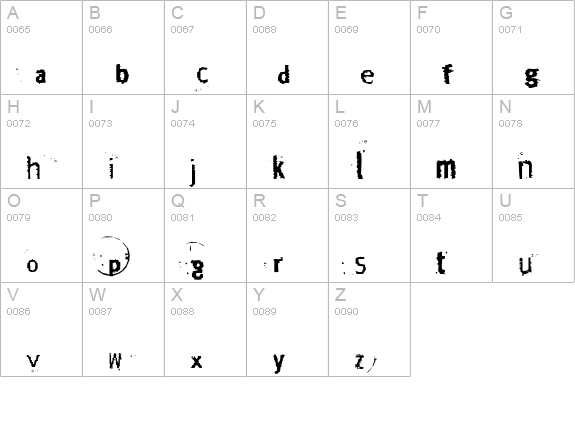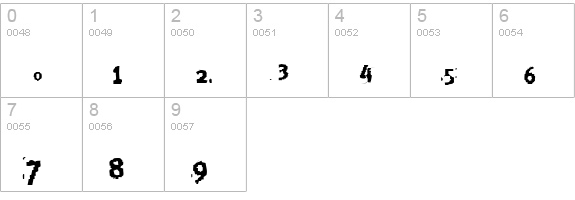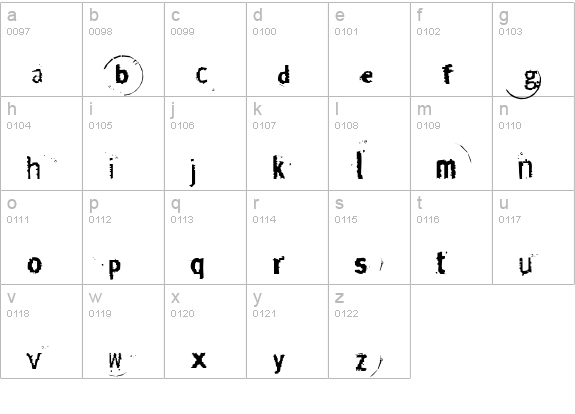
the devils car Font Details
Introducing the devil's car font, a striking and seductive typeface that will ignite your designs with a devilish charm. This font exudes an unparalleled aura of mystery and intrigue, capturing the essence of the devil's allure. With its bold and edgy letterforms, the devil's car font is perfect for projects that require a touch of wickedness and rebellion. The devil's car font is not only visually captivating but also highly versatile, making it suitable for a wide range of design applications. Whether you're crafting a logo for a rock band, designing a poster for a horror movie, or creating a daring tattoo design, this font will add an extra layer of intensity and excitement to your work. One of the most remarkable aspects of the devil's car font is that it is free for download at FontsMarket.com. This means that you can unleash your creativity without any constraints, as this captivating font is readily available for your personal and commercial projects. Don't miss this opportunity to add a touch of devilry to your designs, grab the devil's car font today and let your imagination run wild.